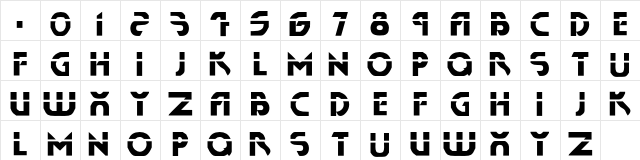
Runner Regular Free Font
Runner Regular
Design Context for Runner
Runner is a composed and adaptable typeface that performs quietly and consistently across a wide range of design contexts.
Pro Tip: Use Runner in both headline and body roles to test its range before committing to a single application.